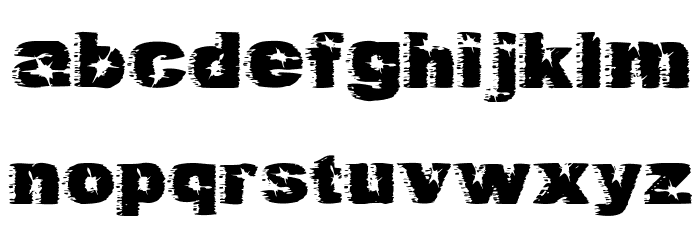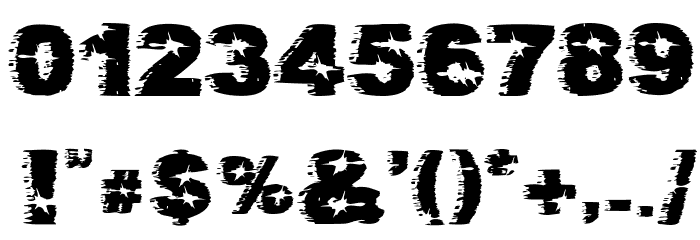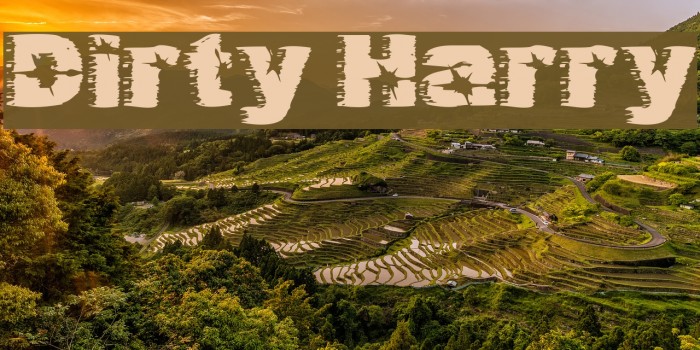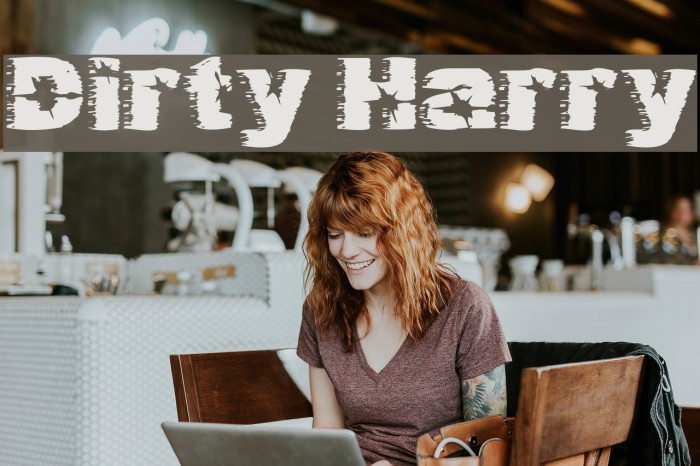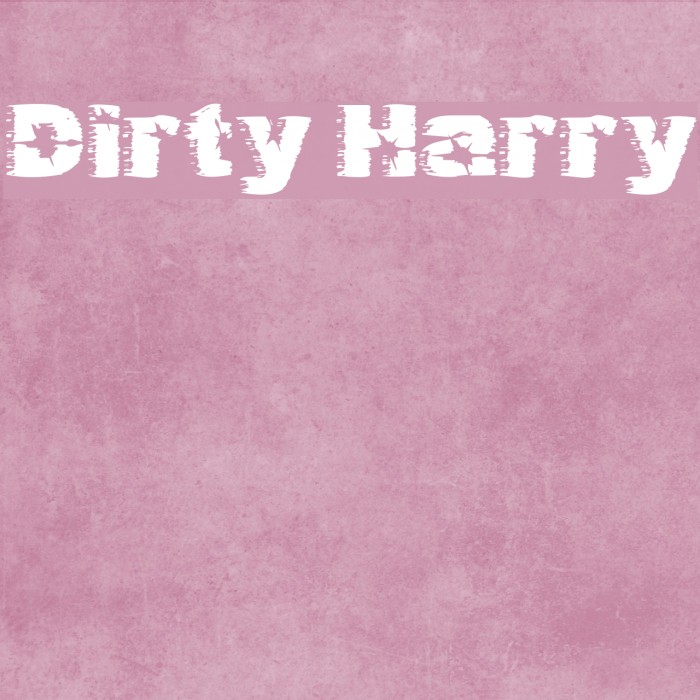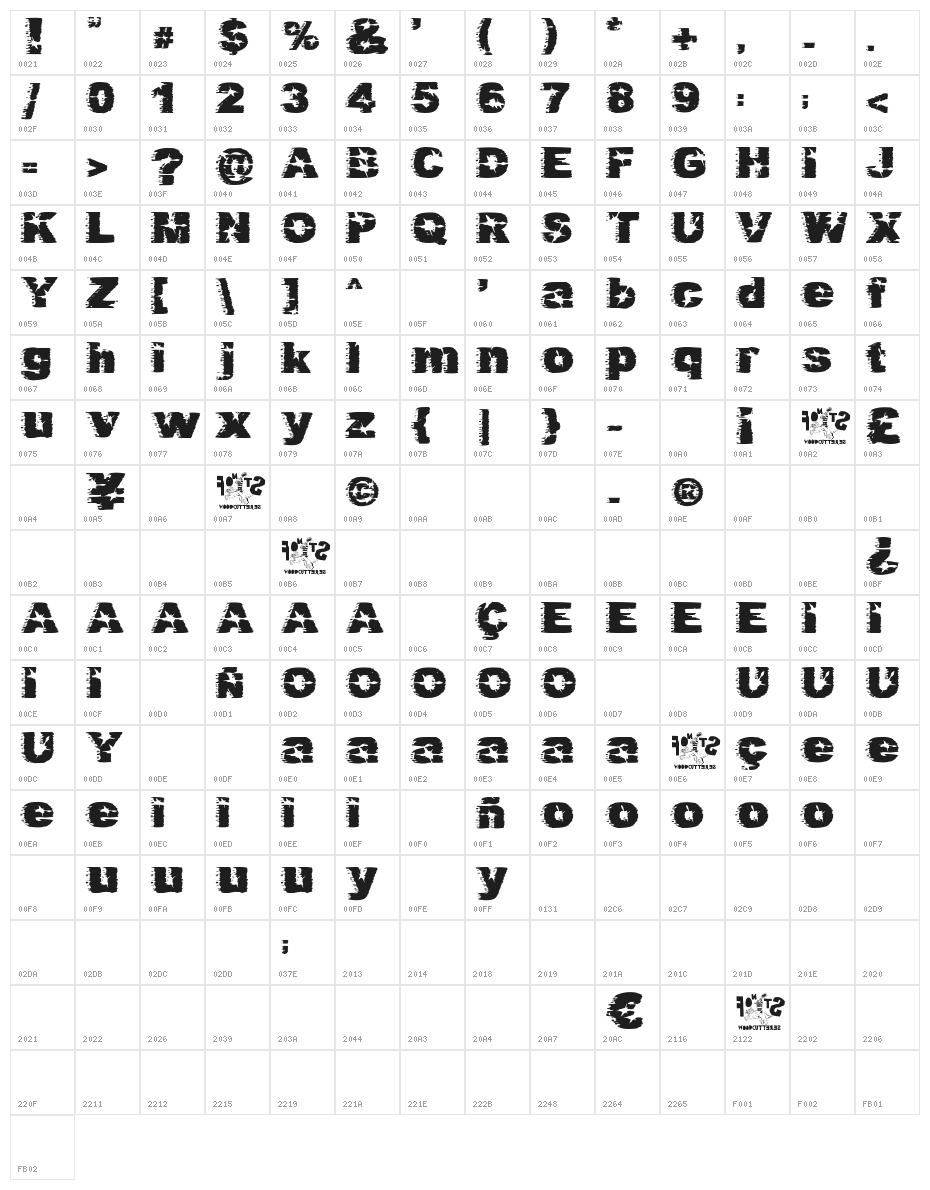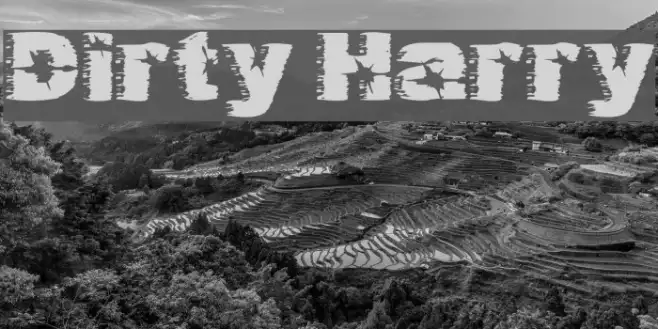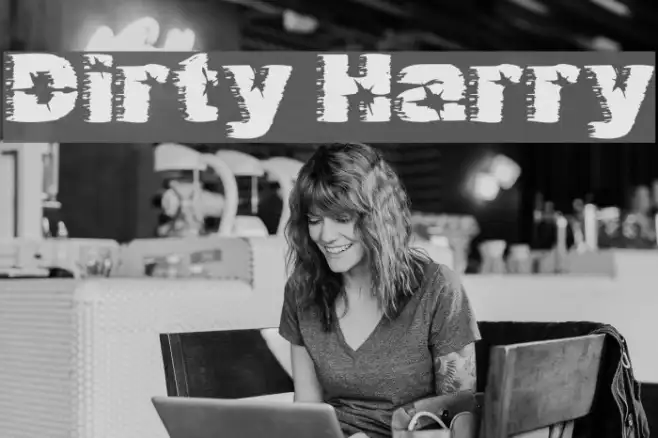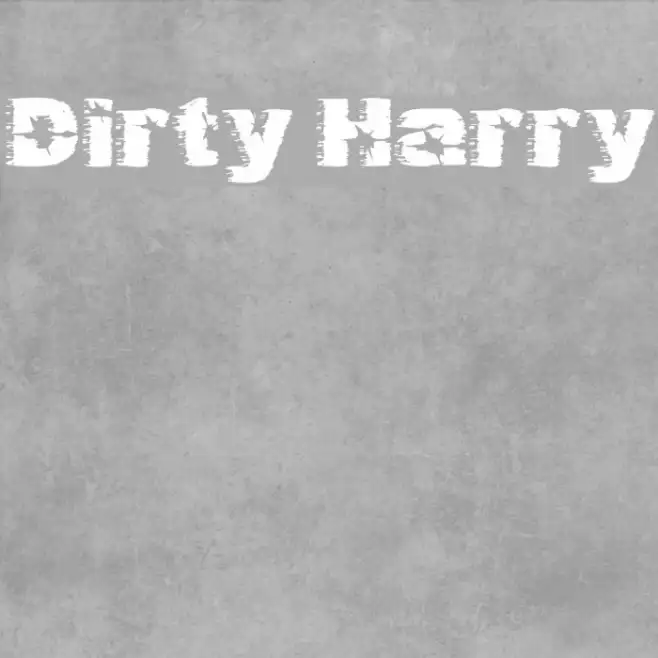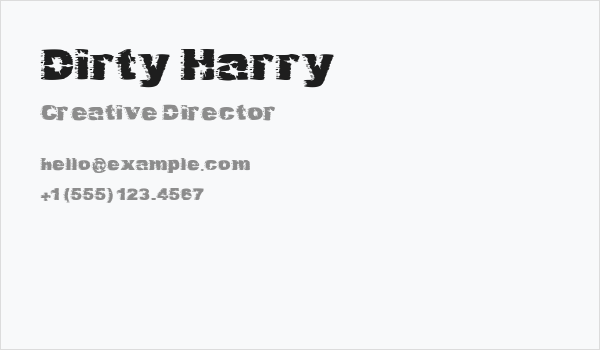
Dirty Harry Font
This font features a bold, distressed style with a rugged, textured appearance. The characters are heavily stylized, giving them a rough, worn look reminiscent of grunge or urban street art. The edges are irregular and jagged, creating a sense of movement and energy. This font is designed to stand out, making a strong visual impact with its unique, gritty aesthetic. The uppercase and lowercase letters maintain a consistent weight, while the numbers and special characters follow the same distressed theme, ensuring a cohesive look across all text elements.
- Proposed Projects: Ideal for projects needing a strong, edgy look such as posters, album covers, or branding for extreme sports.
- Overall Style: Grunge, Urban
- Use Case: Headlines, Posters, Branding